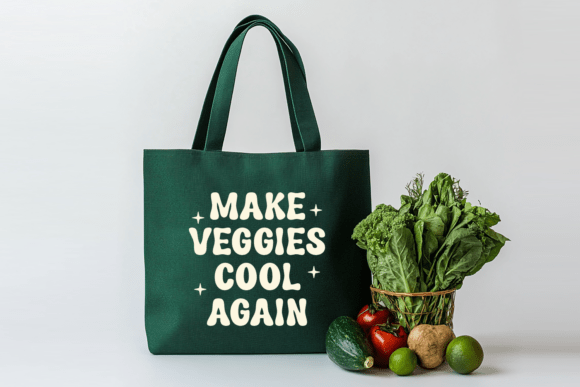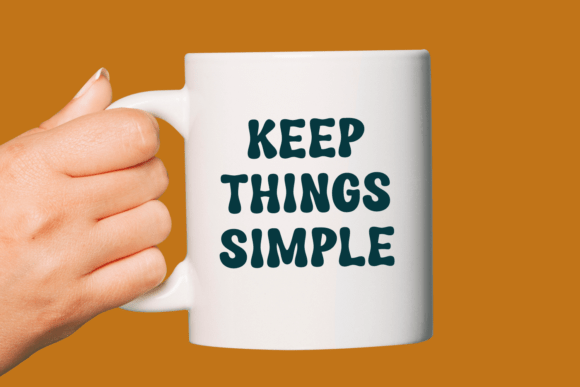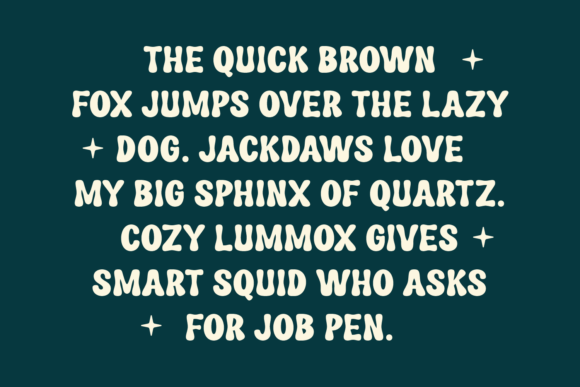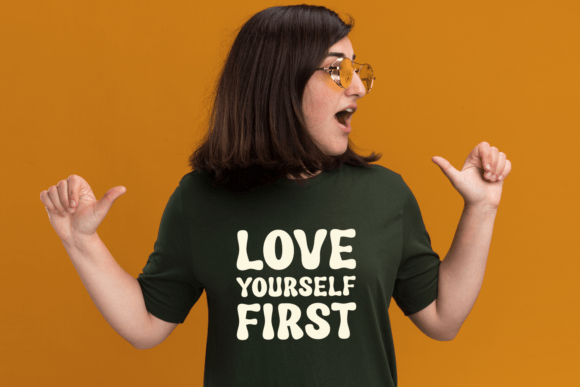
Step Back in Time with Dance Drama Font: The Ultimate Retro Display Font
Are you looking for a font that captures the vibrant, carefree energy of the disco era? Look no further than Dance Drama, a thick and bubbly display font that’s perfect for designers and crafters who want to add a touch of 1970s nostalgia to their work. With its heavy, undulating curves and playful “liquid” silhouette, Dance Drama is the ultimate retro font that’s sure to make a statement.
A Font that Embodies the Spirit of the 1970s
Dance Drama is more than just a font – it’s a time machine. With its bold, curvaceous lines and funky vibe, this font instantly transports you back to the era of disco, bell-bottom jeans, and Saturday Night Fever. Whether you’re designing a poster, t-shirt, or social media header, Dance Drama is the perfect choice for anyone who wants to evoke the carefree, playful spirit of the 1970s.
Key Features of Dance Drama Font
• Thick and Bubbly Design: Dance Drama’s bold, curvaceous lines make it perfect for display purposes. Its thickness ensures that your text will stand out, whether it’s on a poster, a t-shirt, or a social media header.
• Heavy, Undulating Curves: The font’s undulating curves give it a playful, dynamic feel that’s reminiscent of the disco era. These curves add a touch of whimsy and fun to any design.
• Playful “Liquid” Silhouette: Dance Drama’s “liquid” silhouette is what sets it apart from other fonts. Its smooth, flowing lines give it a psychedelic feel that’s perfect for designs that need a little extra flair.
Dance Drama is a versatile font that’s perfect for a wide range of design projects. Here are just a few ideas to get you started:
• Bold Posters: Whether you’re promoting a concert, a party, or a sale, Dance Drama is the perfect font for creating eye-catching posters that demand attention.
• Funky Apparel Designs: Add a touch of retro flair to your t-shirt, hoodie, or hat with Dance Drama. This font is perfect for designs that need a bold, playful vibe.
• Nostalgic Merchandise: If you’re creating merchandise that’s inspired by the 1970s, Dance Drama is the perfect font. Use it to create retro-style designs that will appeal to anyone who loves the disco era.
• Eye-Catching Social Media Headers: Make your social media posts stand out with Dance Drama. This font is perfect for creating bold, eye-catching headers that will grab your followers’ attention.
How to Use Dance Drama Font in Your Designs
Using Dance Drama in your designs is easy. Here are a few tips to get you started:
• Experiment with Different Sizes: Dance Drama is a bold font, but that doesn’t mean you can’t experiment with different sizes. Try using it in large display sizes for maximum impact, or in smaller sizes for a more subtle effect.
• Play with Color: The 1970s were all about bright, bold colors, so don’t be afraid to experiment with different color schemes. Try pairing Dance Drama with bright pink, electric blue, or sunshine yellow for a truly retro look.
• Combine with Other Fonts: While Dance Drama is a bold font that can stand on its own, it also pairs well with other fonts. Try combining it with a simple sans-serif font for a fun, playful effect.
If you’re looking for a font that captures the vibrant, carefree energy of the disco era, look no further than Dance Drama. With its thick, bubbly design, heavy undulating curves, and playful “liquid” silhouette, this font is perfect for designers and crafters who want to add a touch of 1970s nostalgia to their work. Whether you’re creating bold posters, funky apparel designs, nostalgic merchandise, or eye-catching social media headers, Dance Drama is the ultimate retro display font that’s sure to make a statement.